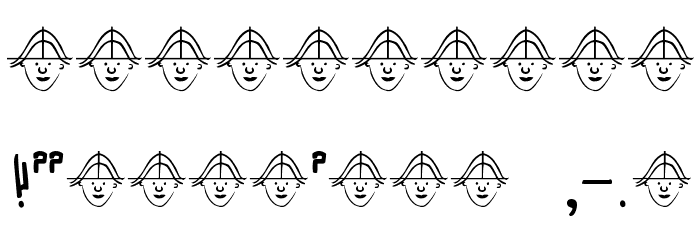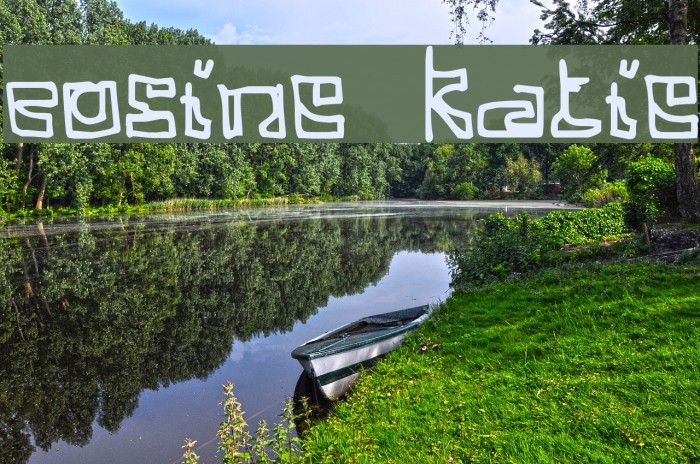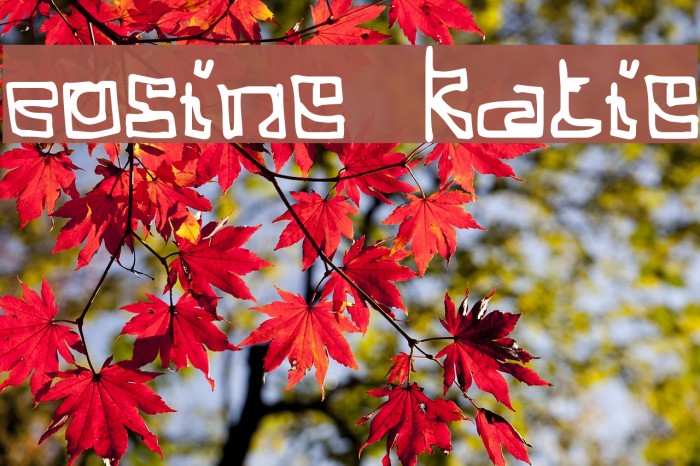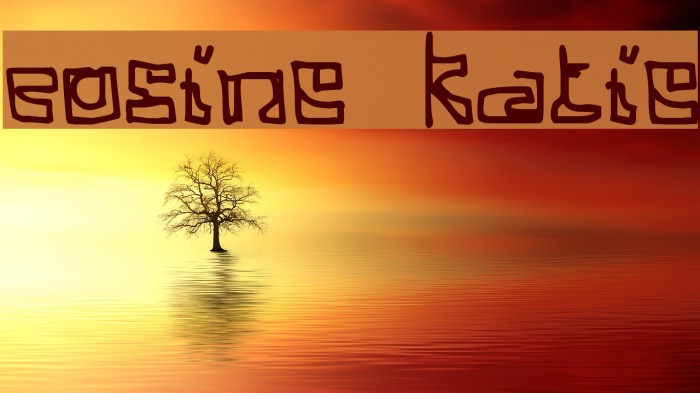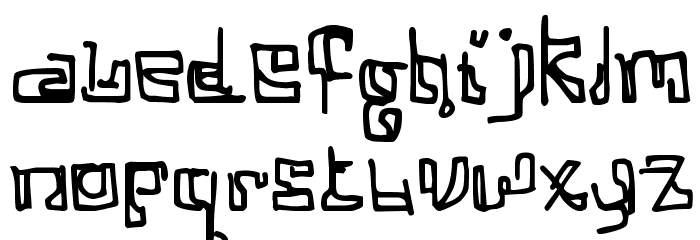
Cosine Katie Font
Cosine Katie Description
This font presents a playful and whimsical style, characterized by its unique and quirky letterforms. Each character is crafted with a sense of fun, featuring irregular shapes and unexpected curves that give it a hand-drawn appearance. The font maintains a consistent line thickness throughout, contributing to its cohesive look. The inclusion of smiley faces as special characters adds an extra layer of charm and creativity, making it stand out as a decorative choice. Its overall design is reminiscent of doodles or sketches, perfect for projects that require a lighthearted and informal touch.
| Overall Style | Whimsical |
| Use Case | Logos, Posters, Creative projects |
| Proposed Projects | Ideal for children's books, playful branding, greeting cards, and creative posters. |